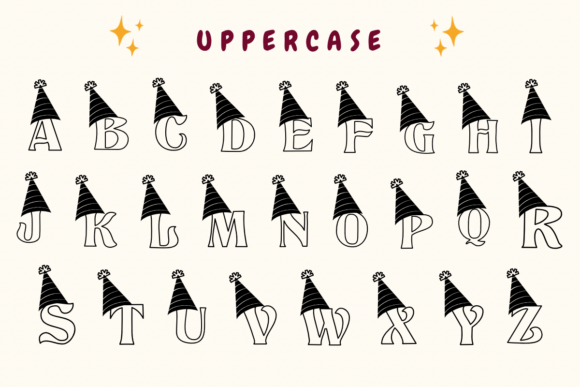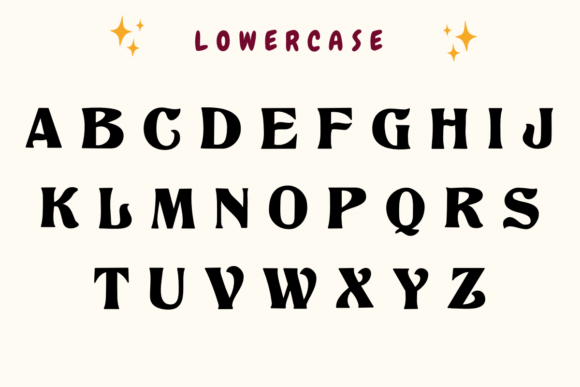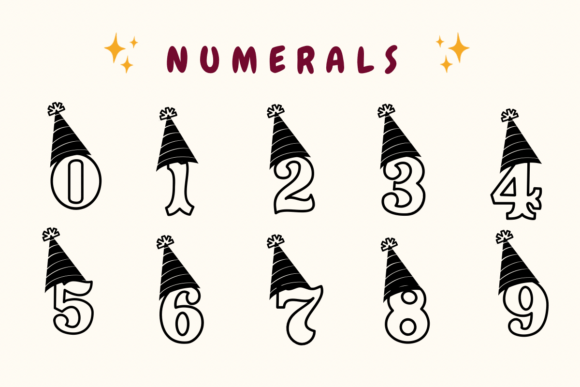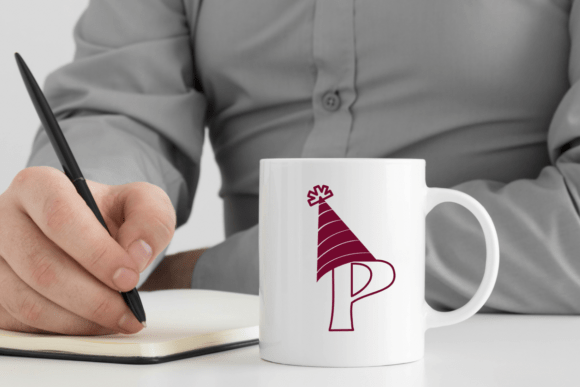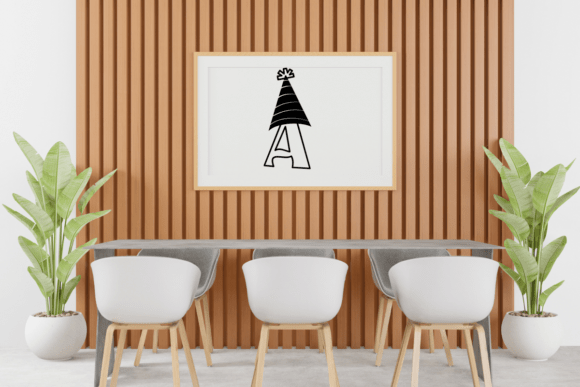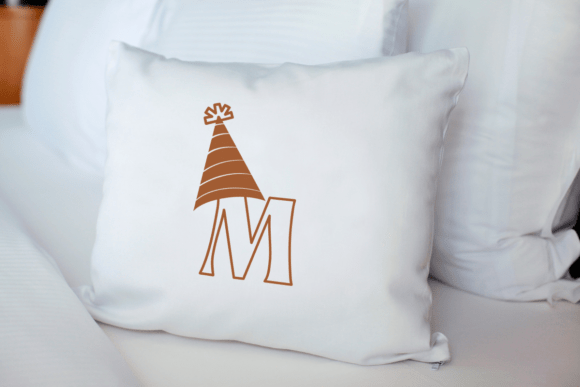
Introduction to Party Hat Font
Have you ever been in the middle of a creative project, brainstorming ideas for a birthday card or a social media post, when suddenly the perfect font pops into your head? For designers, this moment is a dream come true. And, if you’re a fan of whimsical and playful designs, you’re in luck because we’re about to introduce you to a game-changing font that will elevate your creative projects – the Party Hat Font.
This high-quality font is a must-have for any designer looking to add a touch of magic to their work. With its transparent background and free download option, you can easily incorporate it into your designs without any hassle. Whether you’re creating greeting cards, banners, or social media posts, the Party Hat Font is the perfect design resource to make your projects stand out.
Key Features of Party Hat Font
- High-quality, hand-drawn design ideal for creative projects and celebrations.
- Transparent background allows for seamless integration into any design, making it a versatile design resource.
- Unique, playful style perfect for adding a touch of whimsy to any design, from party invitations to social media graphics.
- Perfect for designers, artists, and crafters working on creative projects, including birthday parties, weddings, and other celebrations.
Honest Review: Party Hat Font
I recently stumbled upon the Party Hat Font and was excited to dive in and see what it had to offer. The font itself is quite unique and fun, making it perfect for any creative project that needs a playful touch.
One of the things that stood out to me was the high quality of the font. The lines are crisp, the shapes are well-defined, and the overall aesthetic is top-notch. I was also impressed by the transparent background option, which makes it easy to work with and integrate into any design.
Here are some of the things that work well with the Party Hat Font:
- Unique and fun design
- High quality and crisp lines
- Only available in a limited number of styles and weights
- May not be suitable for professional or formal projects
Overall, I was pleasantly surprised by the Party Hat Font. While it may not be perfect, it’s a great design resource for anyone looking to add a bit of whimsy to their creative project. With its high quality and transparent background option, it’s a great choice for anyone looking for a fun and playful font.
Tips for Getting the Most Out of Party Hat Font
Use the Party Hat Font in conjunction with a transparent background to create a sense of depth and dimension. Experiment with different font sizes and styles to add visual interest to your design. Use the font in a creative project, such as a party invitation or a social media graphic, to add a touch of whimsy and personality.
The Party Hat Font is a versatile design resource that can be used in a variety of contexts, including party invitations, social media graphics, and creative projects. Its high-quality design and transparent background make it a popular choice for designers and non-designers alike.